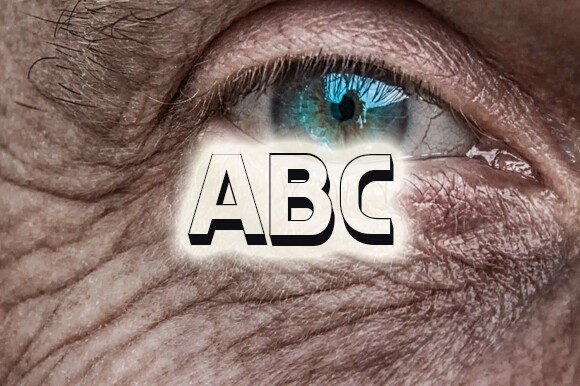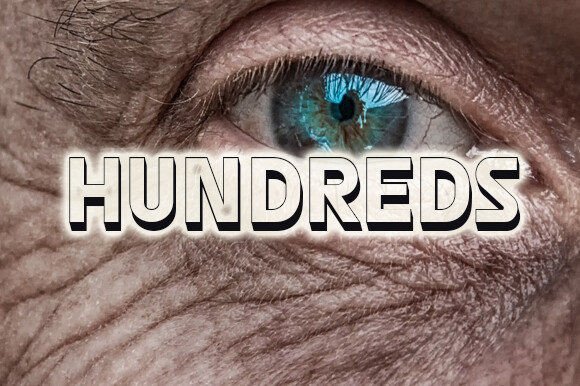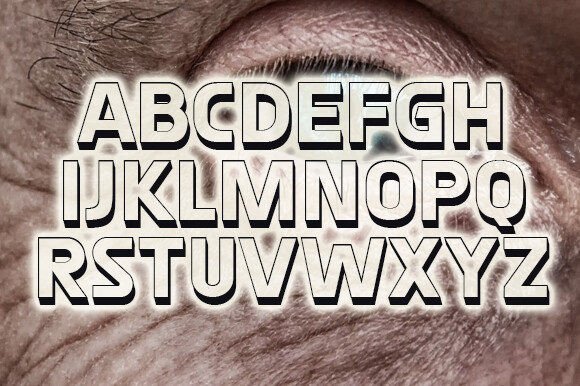
Introduction to Net Worth Font
As a designer, have you ever been stuck in the middle of a creative project, struggling to find the perfect font to bring your vision to life? You’ve scrolled through countless options, only to end up with something that just doesn’t quite fit the bill. Well, we’ve got the solution for you – meet the Net Worth Font, a stunning 3D font that’s sure to elevate any design.
With its sleek, modern design and transparent background, the Net Worth Font is a versatile design resource that’s perfect for a wide range of creative projects. Whether you’re working on a poster, flyer, t-shirt design, or social media campaign, this font is sure to make your project stand out. And the best part? It’s available for free download, making it a valuable resource for designers of all levels.
Key Features of Net Worth Font
- High-quality, professional font design ideal for creative projects and personal branding
- Comes with a transparent background, making it easy to use on any design resource
- Supports a wide range of languages, making it a versatile design resource
- Unique, modern design with a clean and minimalist aesthetic, perfect for creative projects and personal branding
Honest Review: Net Worth Font
I recently stumbled upon the Net Worth Font, and I must say it’s been a game-changer for my creative projects. The design resource offers a sleek, modern aesthetic that’s perfect for illustrating financial growth and success.
- ✨ The font is incredibly easy to use, even for those without extensive design experience.
- ✨ The high-quality design ensures a professional look in any project.
- ✨ The transparent background makes it easy to layer and customize the font to fit any creative vision.
- ⚠️ The font may not be as versatile for projects outside of the financial or business sphere.
- ⚠️ Some users may find the design a bit too generic, lacking in unique character.
Overall, I’m thoroughly impressed with the Net Worth Font. Its modern design and ease of use make it a valuable addition to any designer’s toolkit. Whether you’re working on a financial project or simply need a stylish font to elevate your design, the Net Worth Font is definitely worth checking out.
The Net Worth Font is a versatile and modern design resource, ideal for any creative project. With its transparent background and high-quality design, it can be easily integrated into various platforms.
The Net Worth Font is ideal for various creative projects, including:
- Business and finance-related designs
- Infographics and data visualizations
- Marketing and advertising materials
Alternatives to Net Worth Font
Open Sans is a modern, high-quality sans-serif font designed for digital use. It is a great alternative to Net Worth Font for designers who need a clean and professional look for their creative project.
Open Sans is a free download and has a transparent background, making it perfect for any design resource. It is highly legible and works well in both print and digital formats.
Compared to Net Worth Font, Open Sans is more versatile and has a wider range of font weights and styles. It is a great choice for designers who want a font that is both modern and timeless.
Lato is a beautiful, high-quality sans-serif font designed for digital use. It is a great alternative to Net Worth Font for designers who need a font that is both elegant and modern.
Lato has a transparent background and is a free download, making it a great design resource for any creative project. It is highly legible and works well in both print and digital formats.
Yes, the Net Worth Font includes a transparent background option, making it easy to use in creative projects that require a clean and minimalist design. This feature is particularly useful when using the font on a website or in a presentation with a transparent background.